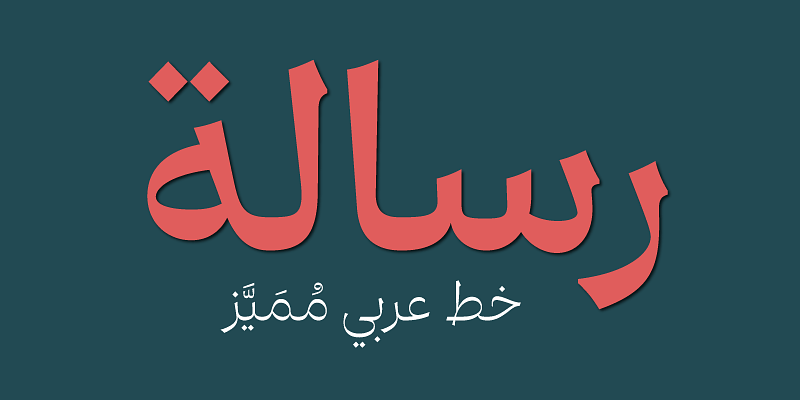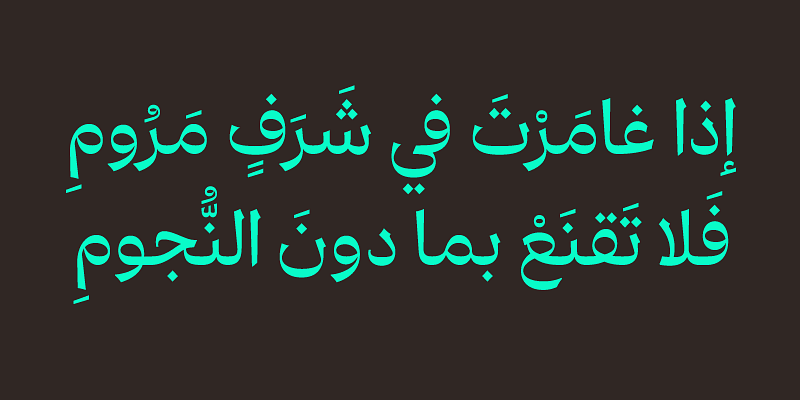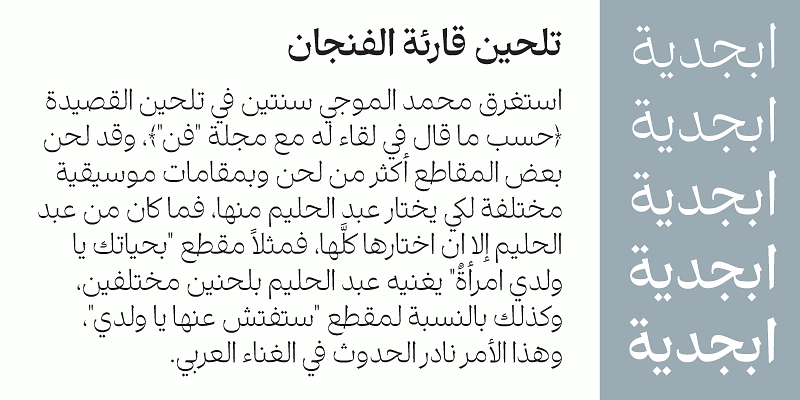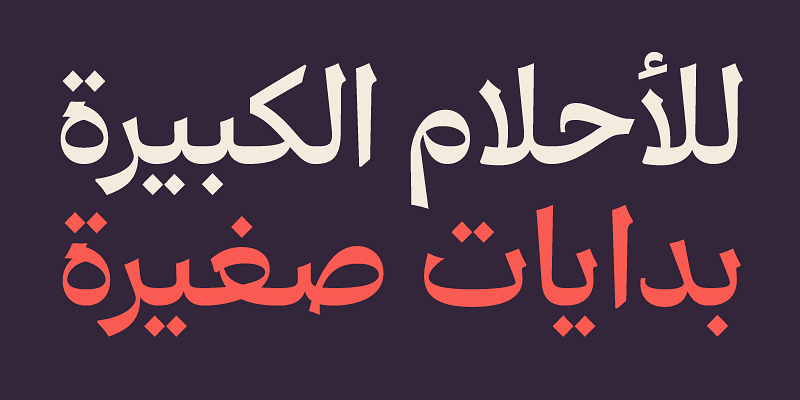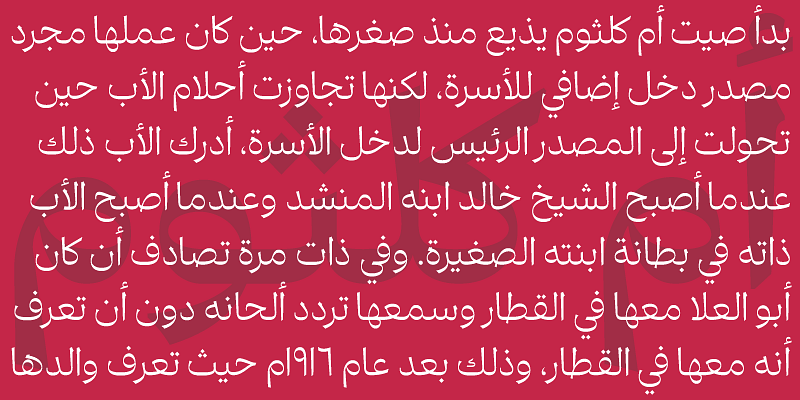
A typeface that is just as informed by modern digital design possibilities as it is by the natural calligraphic tension and flow of the classic Naskh/Muhaqqaq traditions. Perfect for pairing with Latin faces of the oldstyle and transitional varieties.